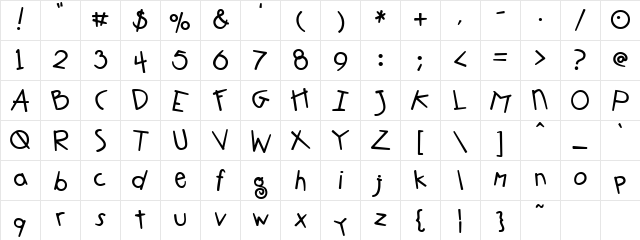
PC Crazed Regular Free Font
PC Crazed Regular
Complete PC Crazed Regular glyph index. Displaying only characters natively supported by PC Crazed Regular font.
Design Context for PC Crazed
PC Crazed is a composed and adaptable typeface that performs quietly and consistently across a wide range of design contexts.